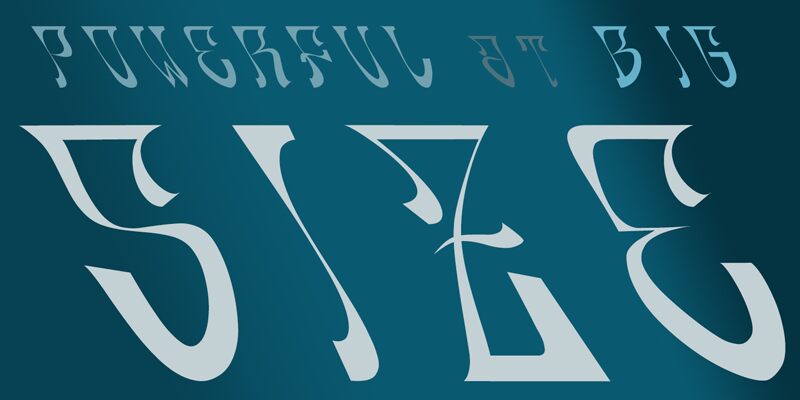
Oldskool
Oldskool, a gritty and unapologetic graffiti-inspired font, commands attention with its bold, condensed strokes. Designed by Manuel Ramos, this font exudes an urban, rebellious spirit, perfect for projects seeking a raw, edgy aesthetic. The dramatic letterforms and dramatic negative spaces create a striking visual impact, making Oldskool an ideal choice for album covers, event posters, and streetwear designs. Its condensed width allows for a versatile application, from eye-catching headlines to compact body text.
Oldskool's unique personality effortlessly bridges the gap between traditional graffiti art and modern design, offering a captivating and impactful typographic solution.